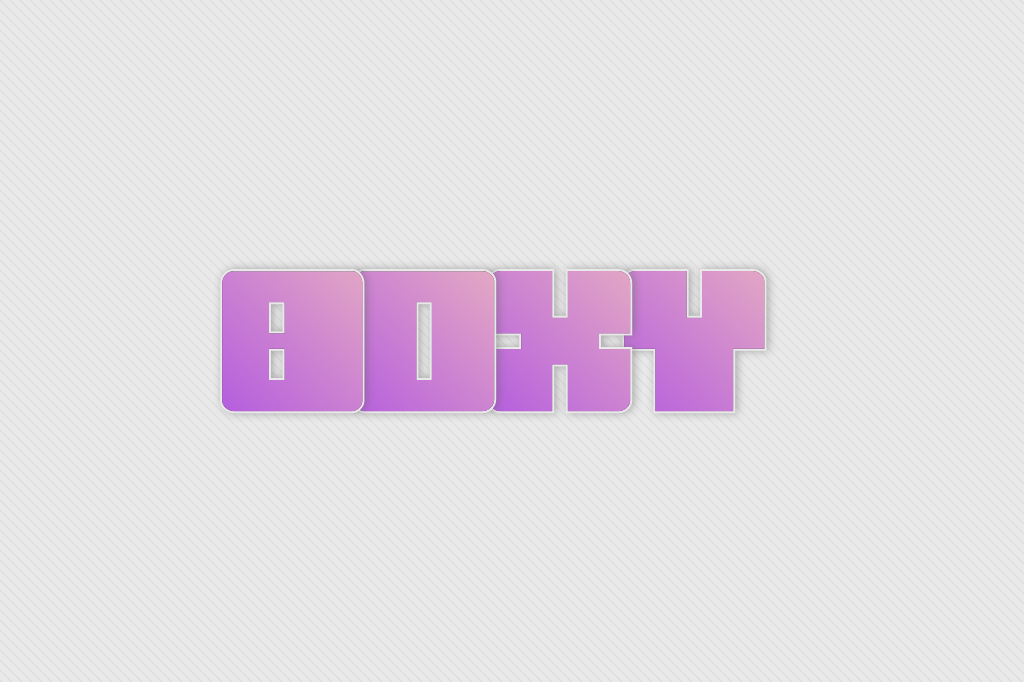
The Birth of a Bold New Font
Have you ever stared at a blank canvas, waiting for the perfect spark to ignite your creativity? For designers, this moment is a familiar and thrilling experience. It’s the moment when a new idea begins to take shape, and the possibilities are endless. For Simon Jakobssons, this moment led to the creation of a font that would shake up the design world: Boxy Font.
Boxy Font is a square display font designed to make a statement. Its bold, geometric lines cut through the noise, demanding attention and commanding respect. Whether used for headlines, titles, or even social media graphics, Boxy Font is the perfect choice for designers who want to add a touch of edginess to their work.
What makes Boxy Font truly valuable is its versatility. It’s a font that can be used in a variety of contexts, from modern logos to retro-inspired graphics. Whether you’re a seasoned designer or just starting out, Boxy Font is a valuable addition to your toolkit, offering endless possibilities for creative expression.
Key Features of Boxy Font
• Font Family: Boxy Font is a sans-serif font family designed to be used for digital and print media.
• Font Size: Boxy Font is designed to be highly legible at various font sizes, with clear and crisp typography even at small sizes.
• Resolution: Boxy Font is optimized for high-resolution displays, making it suitable for use in digital media such as web design, mobile apps, and digital signage.
• Unique Characteristics: Boxy Font features a unique, geometric design with a bold and modern aesthetic, making it perfect for use in branding, advertising, and editorial design.
• Font Weight: Boxy Font is available in multiple font weights, from light to bold, allowing for flexibility in design and typography.
Boxy Font Review
Overall, I’d say Boxy Font is a solid choice for projects that need a playful, modern look. It’s got a lot of character, and that’s ✨ exactly what it’s going for.
Here are some of the things I think Boxy Font does well:
• It’s super easy to read, even at smaller font sizes
• The bold weights are really striking and add a lot of visual interest
• It’s a great choice for titles and headings – it really pops on the page
• It’s a nice, modern font that’s perfect for projects that need a little extra flair
That being said, there are a few limitations to consider:
• It can be a bit too playful for more formal projects – it’s not the best choice for things like resumes or academic papers
• The regular weight can be a bit too light for some uses – it’s not as legible as some of the other weights
• It’s not as versatile as some other fonts – it’s really best used for titles and headings, rather than body text
Overall, I think Boxy Font is a great choice for projects that need a modern, playful look. Just be aware of its limitations, and use it judiciously. ⚠️
Tips for Getting the Most Out of Boxy Font
Use Boxy Font for headings and titles to create a bold and eye-catching visual effect. Pair it with a clean and simple font for body text to create a balanced design. Experiment with different font sizes and colors to create a unique look.
Boxy Font is perfect for creating a retro or vintage aesthetic in designs, such as:
• Posters and flyers
• Business cards and resumes
• Social media graphics and ads